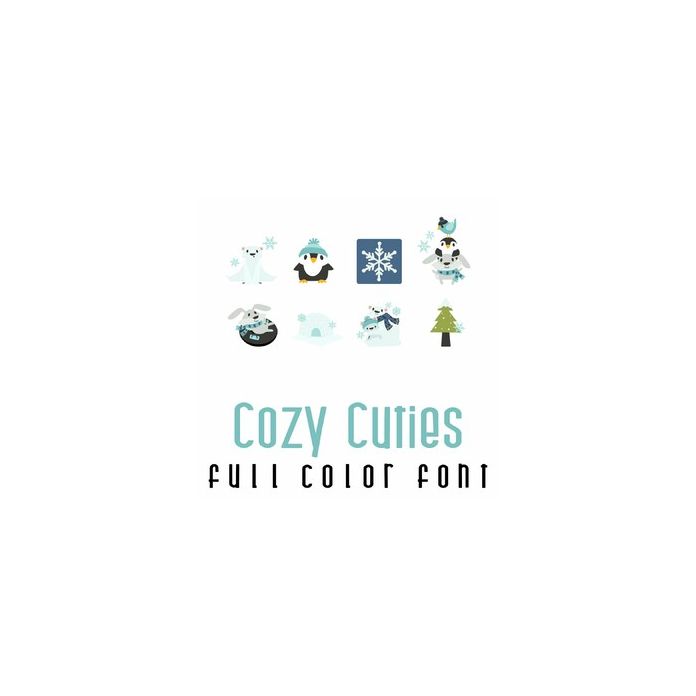
This adorable full-color doodlebat font features 26 winter animals having fun in the snow. Perfect for cards, crafts, gifts, decor, scrapbook pages, planner stickers, and more!